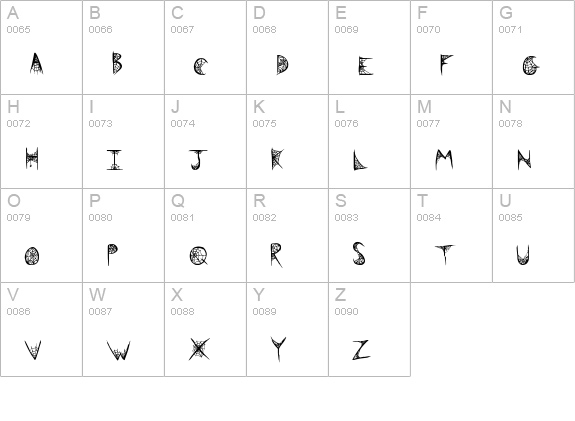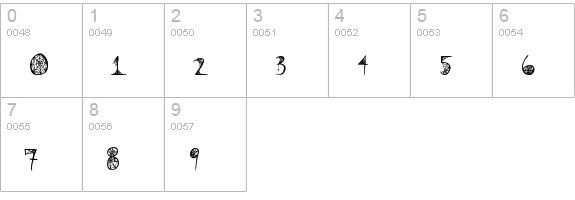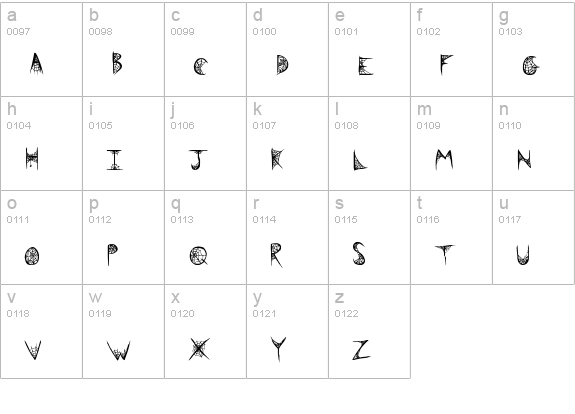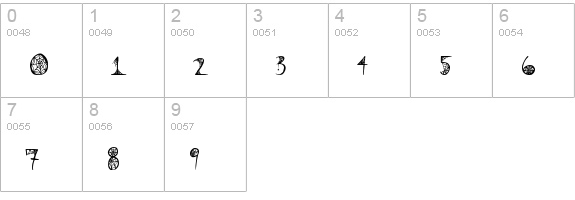
Introducing BlackWidow font, a stunning typeface that exudes elegance, sophistication, and a touch of mystery. With its sleek, slender letterforms and perfectly balanced strokes, this font captures the essence of a black widow spider, known for its grace and deadly allure. BlackWidow font is not only visually captivating but also highly versatile. Whether you're designing a logo, crafting a headline, or creating a poster, this font will add a touch of sophistication and intrigue to any project. Its unique and distinct personality ensures that your message will stand out from the crowd. But what truly sets BlackWidow font apart is the fact that it is freely available to download at FontsMarket.com. Yes, that's right! You can now enhance your designs with this exceptional font without any cost. FontsMarket.com, a renowned platform for high-quality fonts, offers BlackWidow font as a gift to designers and creatives, allowing them to elevate their artistic visions without breaking the bank. With its generous selection of uppercase and lowercase letters, numbers, and punctuation marks, BlackWidow font provides endless possibilities for your creative projects. Its smooth curves and sharp edges create a visually striking contrast, making every word come alive on the page. So, whether you're a professional designer or an aspiring artist, don't miss out on the opportunity to incorporate BlackWidow font into your work. Download it for free at FontsMarket.com today and unleash your creativity with this captivating and freely accessible typeface.